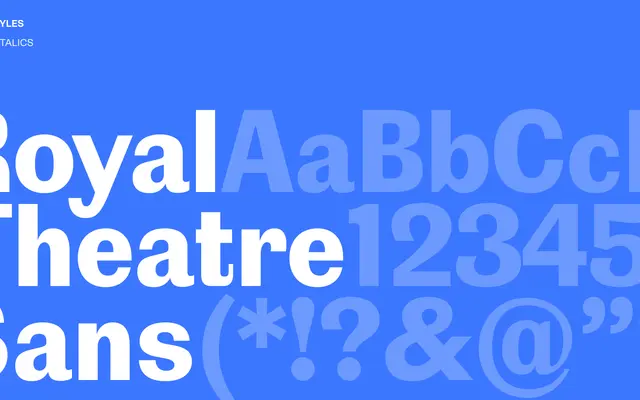
Royal Theatre Sans
Playtype
Royal Theatre Sans specimen from Playtype
A typeface from Playtype drawn for cultural and theatrical contexts, with a name and framing that suggest character and warmth over neutrality.
Royal Theatre Sans sits in Playtype's range as a typeface with a clear contextual identity, leaning into performance and culture as its design territory. The theatrical framing implies a humanist sensibility rather than a purely functional grotesque. Well-suited to programmes, cultural branding and editorial work where personality is expected.
The name and theatrical framing suggest a refined, characterful sans-serif with humanist qualities suited to cultural and performance contexts.